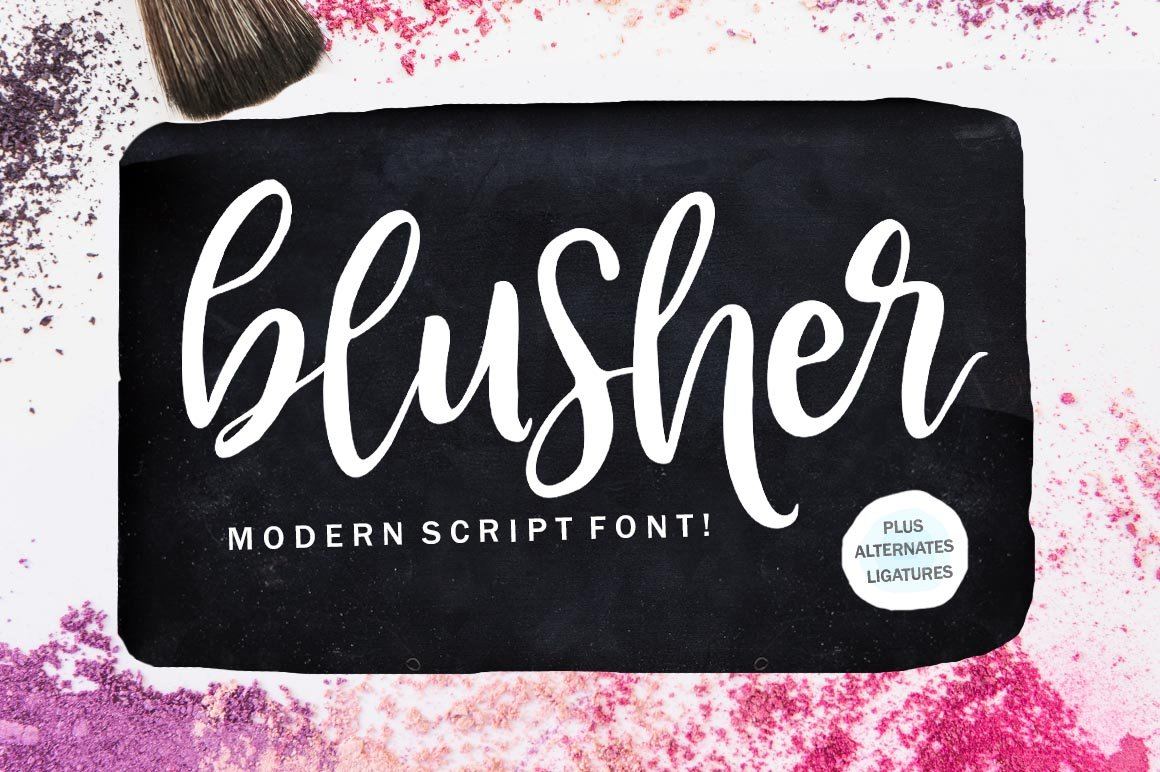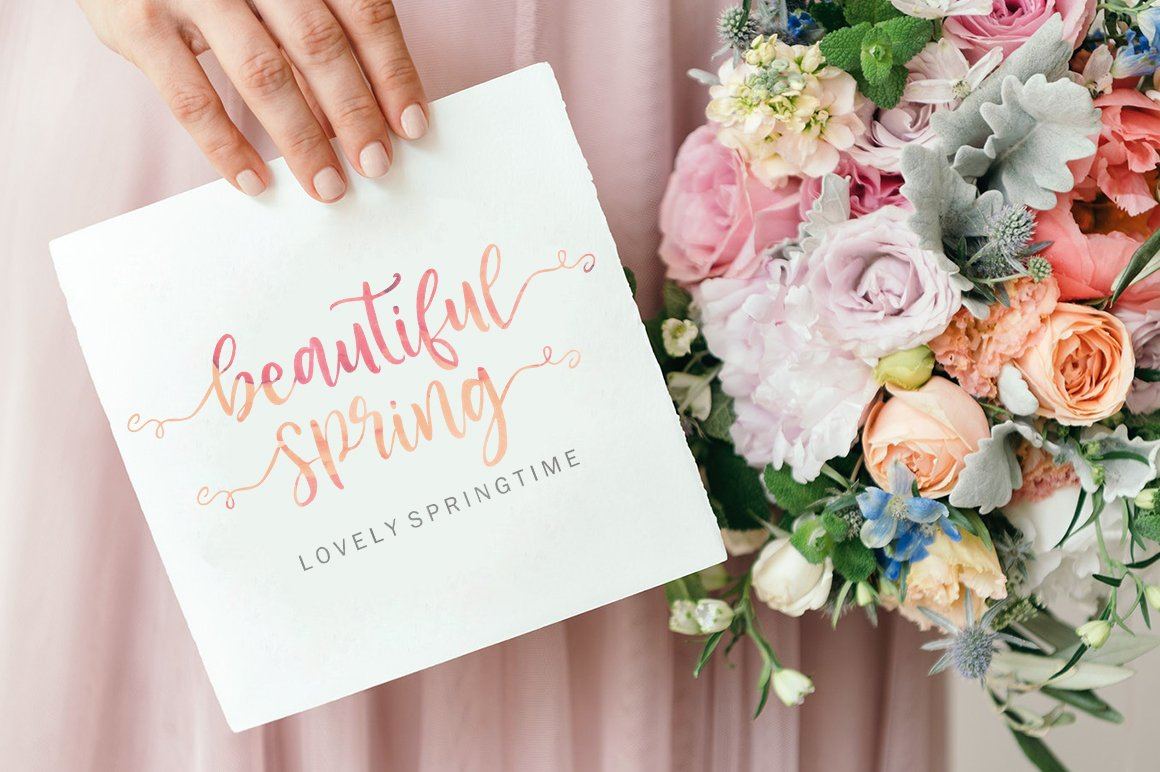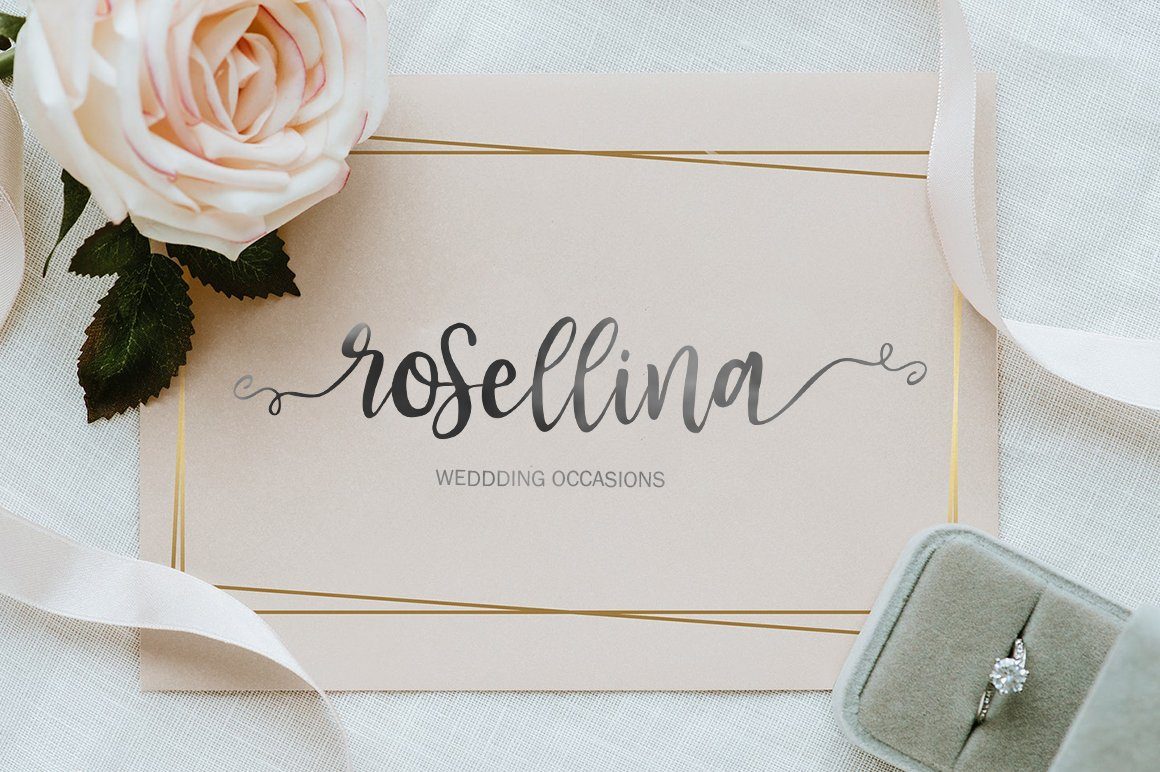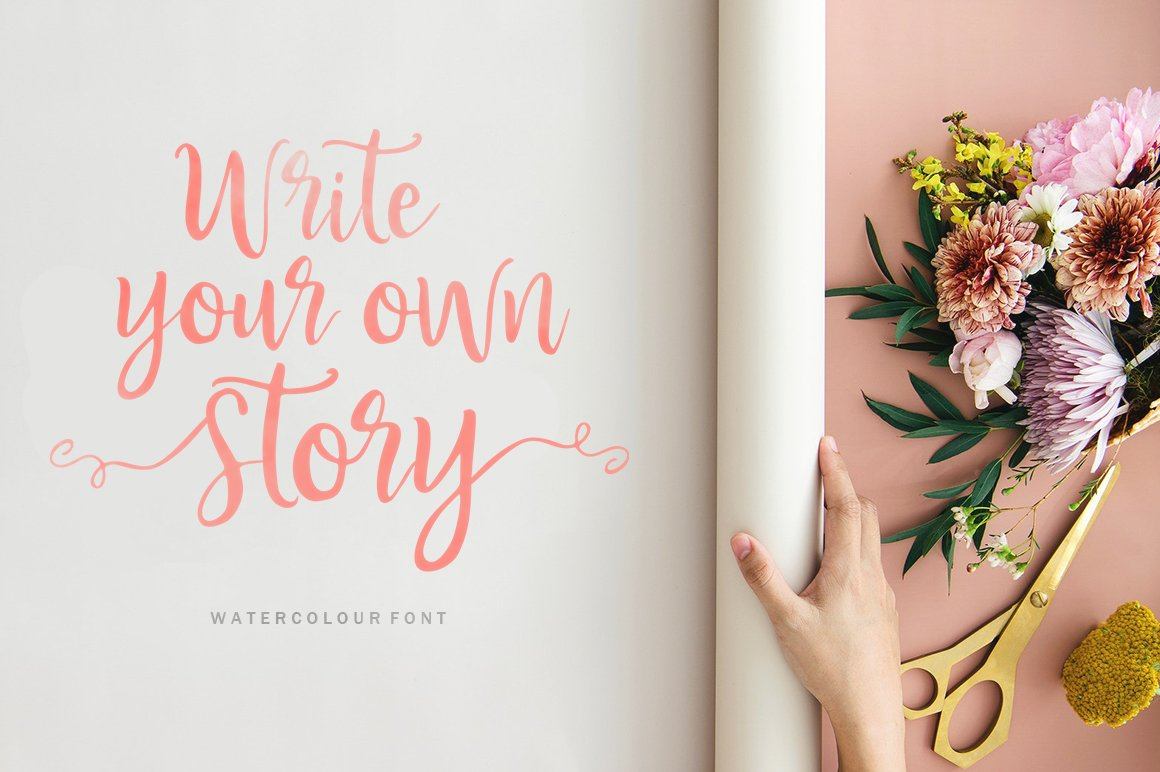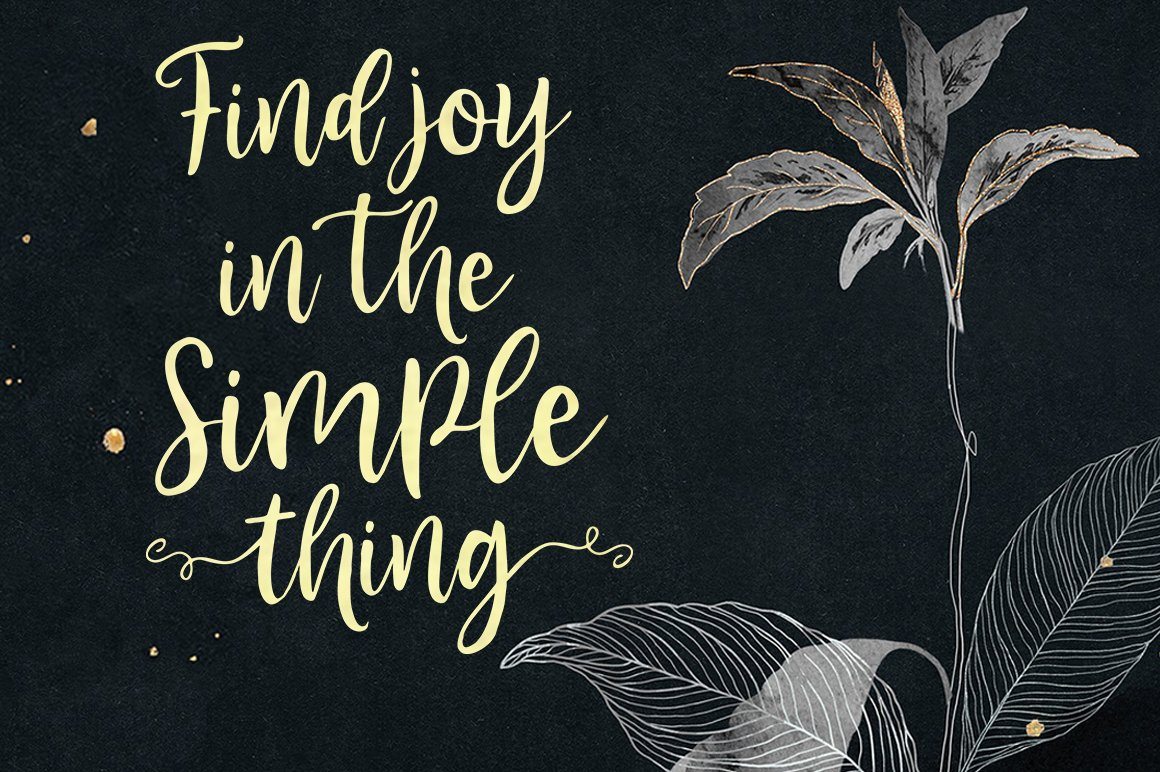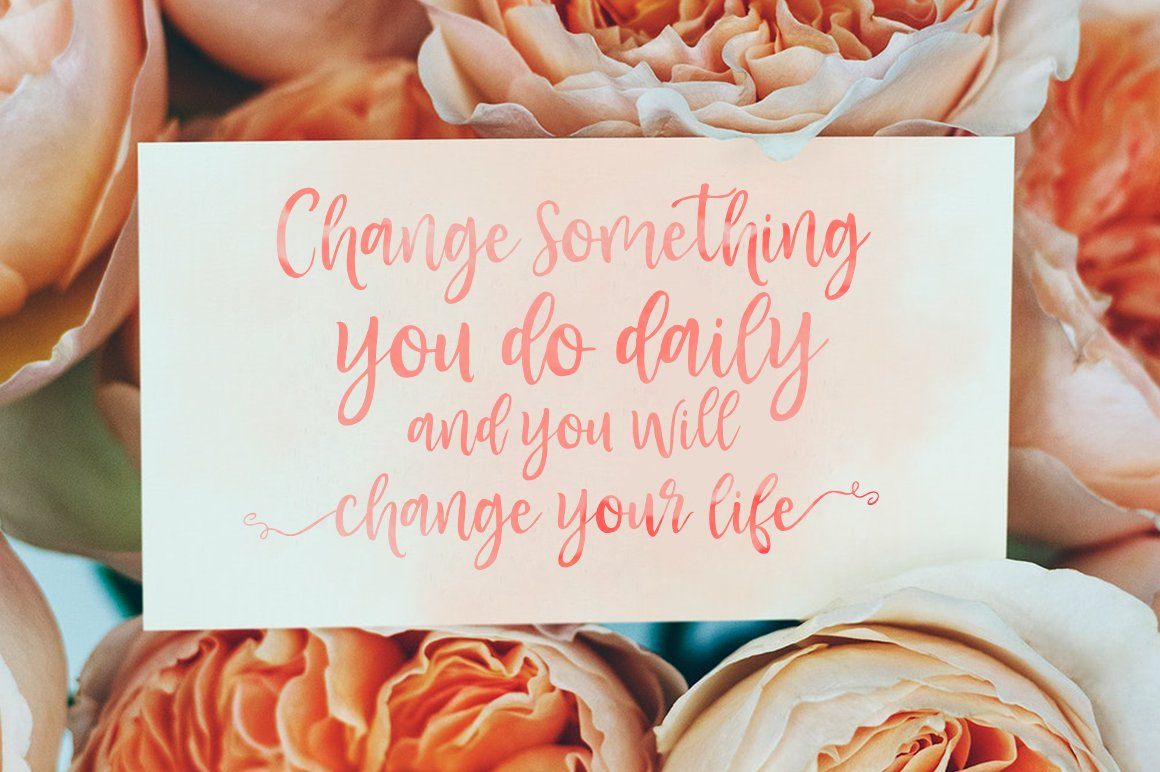
Blusher Script
About Blusher Script
Blusher script is a hand brush font made with brushes and ink. This typeface is ideal for use in thick watercolor designs or handwriting styles, such as blog titles, posters, wedding elements, t-shirts, clothing, book covers, business cards, greeting cards, branding, merchandise etc. Contains full set: – Uppercase – Lowercase – alternative – Ligatures – Punctuation – number – multilingual support. How to access all alternative characters, using Windows Character Map with Photoshop: – https://www.youtube.com/watch?v=Go9vacoYmBw How to access all alternative characters using Adobe Illustrator: – https://www.youtube.com/watch?v=XzwjMkbB-wQ Thank you!